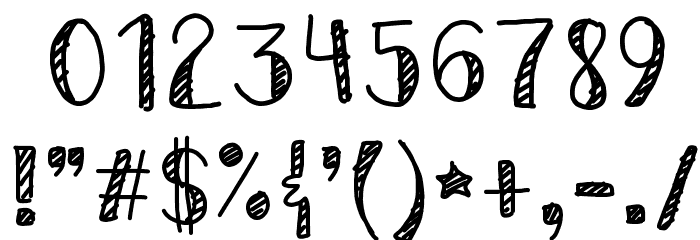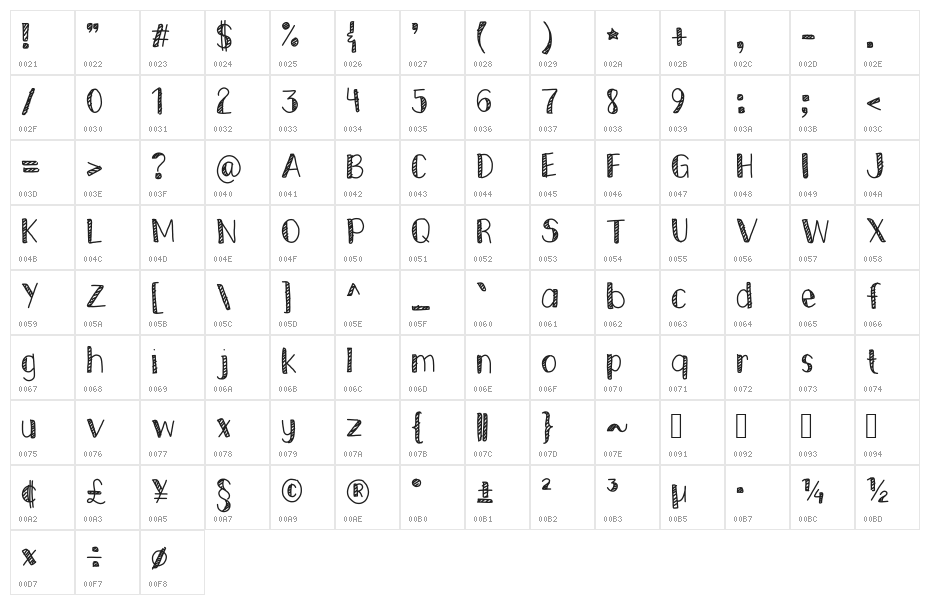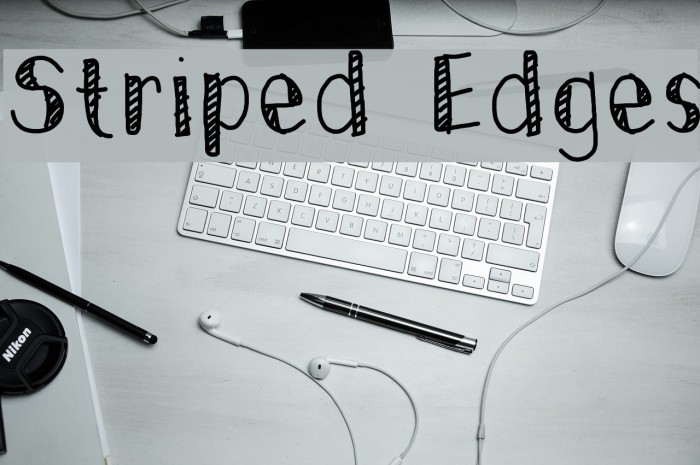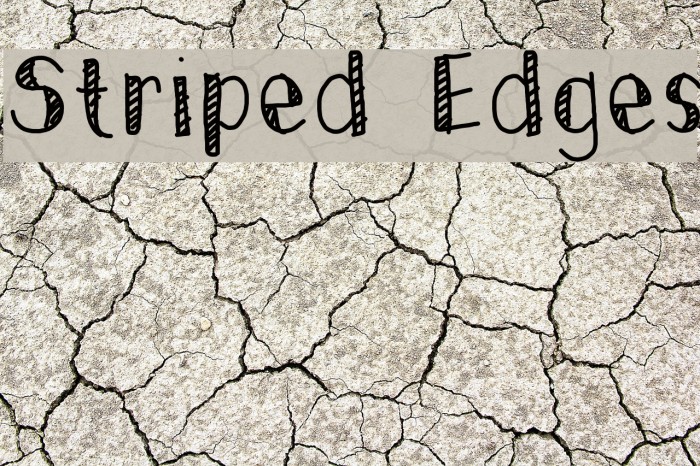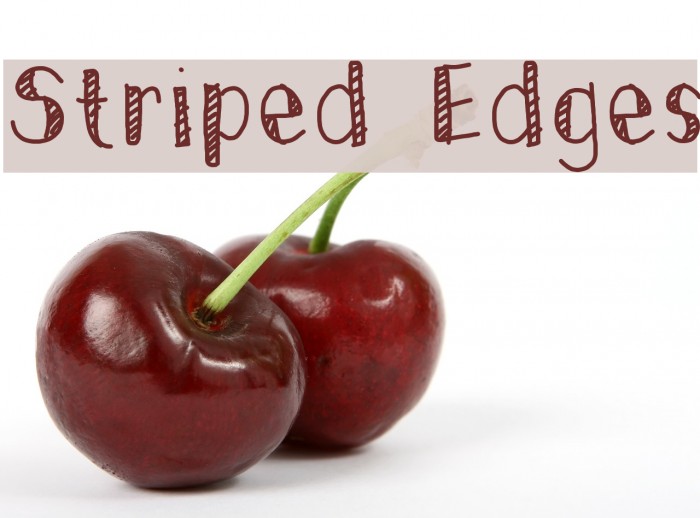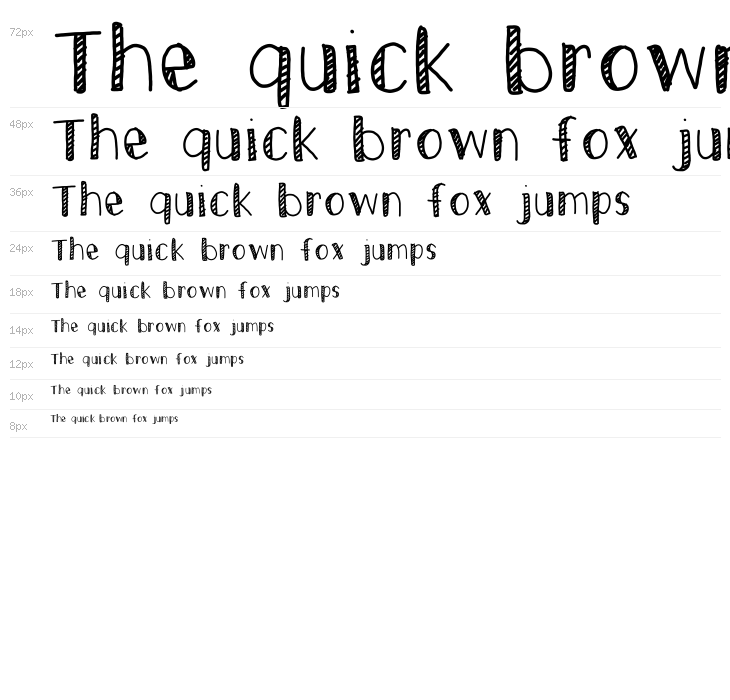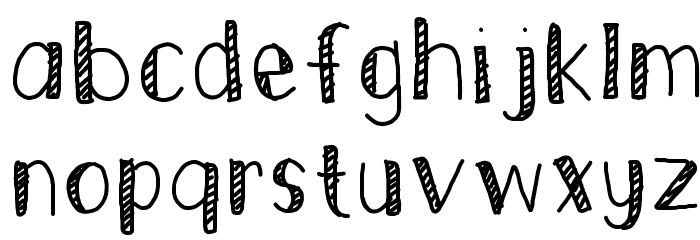
Striped Edges Font
Striped Edges Description
This font features a playful and unique design with striped edges that give it a hand-drawn appearance. The letters are bold and slightly irregular, adding to the casual and whimsical feel. Each character has a distinct personality, with varying line thicknesses and a dynamic flow. The uppercase and lowercase letters maintain a consistent style, while the numbers and special characters complement the overall aesthetic. This font is perfect for projects that require a fun and informal touch.